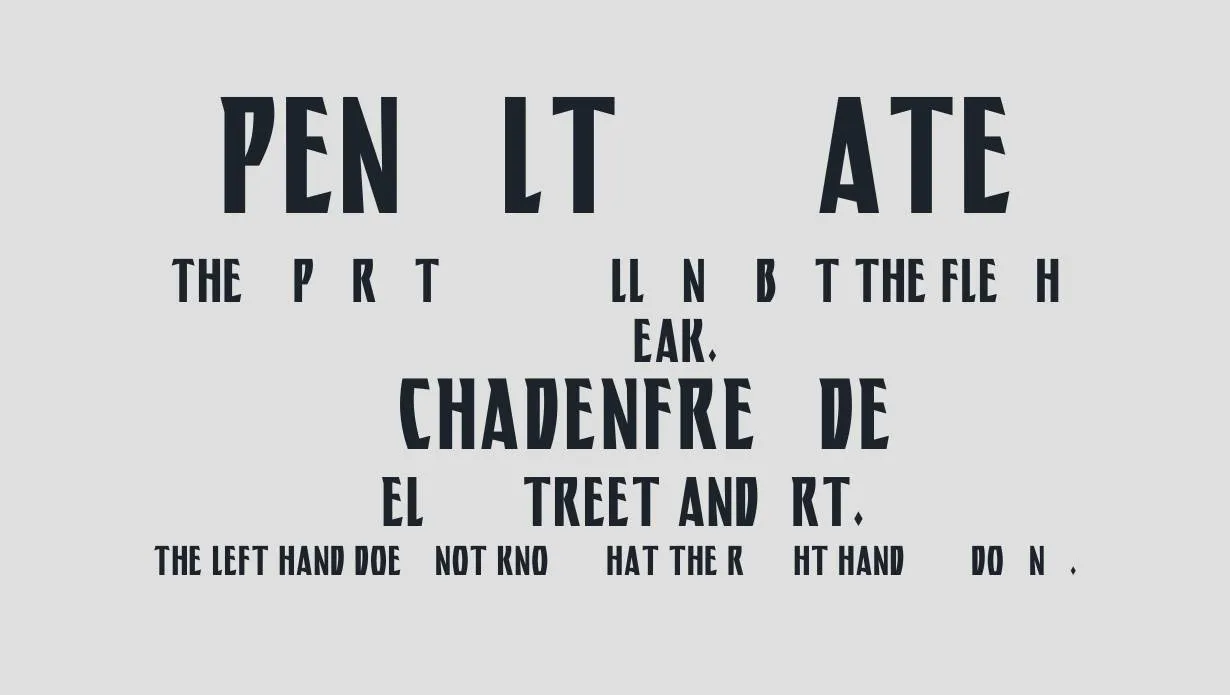
The Black Panther font is likely inspired by the bold and dynamic lettering associated with the Black Panther superhero. It has a strong and impactful appearance, conveying a sense of power and strength.
When people use the Black Panther font, it adds a touch of superhero energy to their text. This font is often chosen for projects related to action, comics, or anything that requires a bold visual presence.
Black Panther Font Info
| Name | Black Panther Font |
| Designer | Gene Buban |
| Style | Techno |